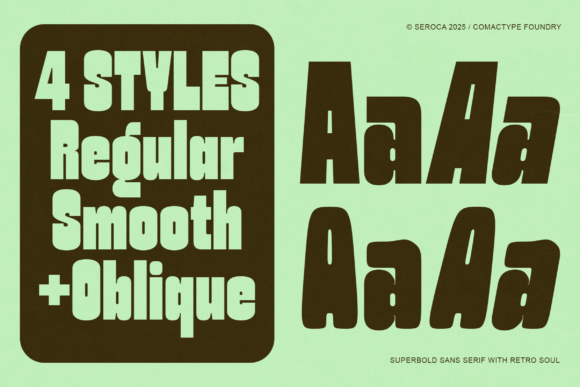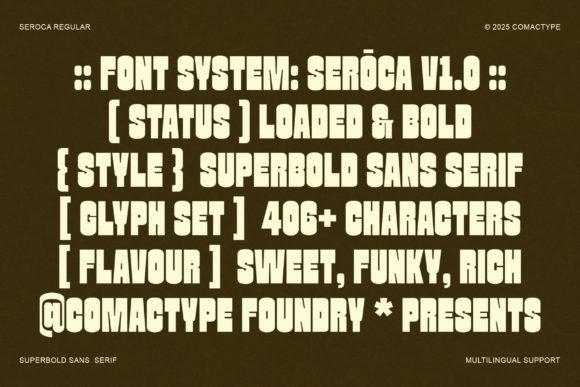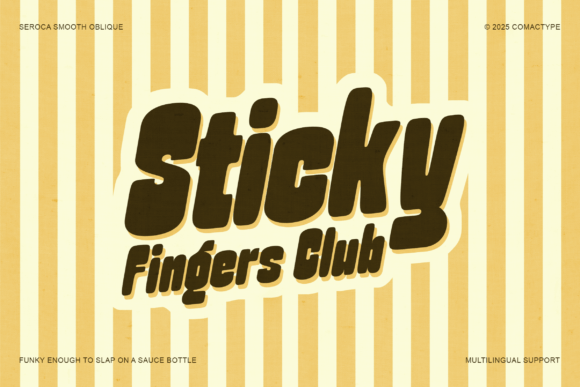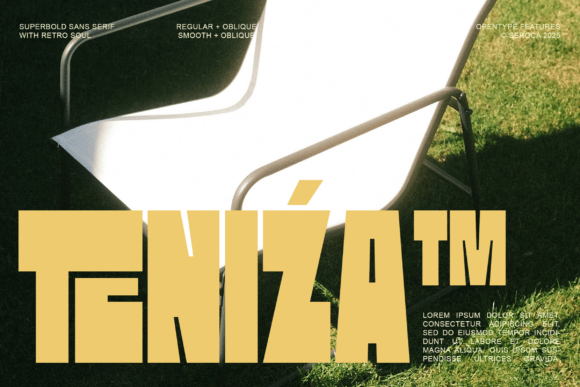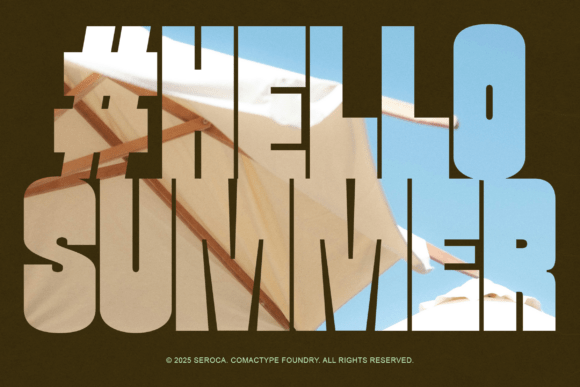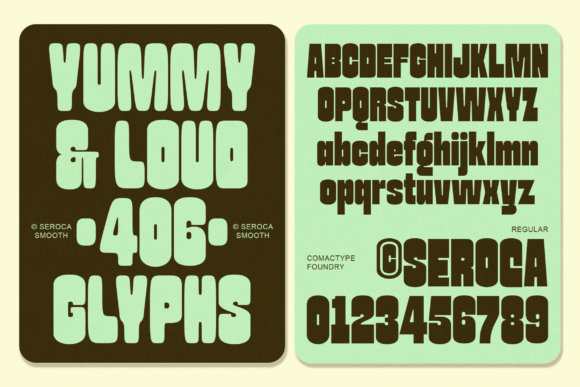
Introduction to Seroca Font
Have you ever been stuck on a design project, desperately searching for that one perfect font to bring your vision to life? That’s where Seroca Font comes in – a super bold sans serif font with a funky, retro-inspired personality that’s sure to make your design stand out.
Designed by Comactype Foundry, Seroca Font is a high-quality design resource that features chunky letterforms, sharp inktraps, and playful shapes that make it perfect for bold design applications, like product labels, food packaging, or vintage-style posters. With its eye-catching presence and strong character, Seroca Font is made to stand out in any creative project, whether you’re working on a free download or a paid design gig.
- Designed with a modern and sleek aesthetic, making it perfect for a variety of creative projects and designs.
Honest Review: Seroca Font
As a designer, I’m always on the lookout for high-quality fonts that can elevate my creative projects. The Seroca Font is one of the latest additions to my design resource library, and I must say, it’s been a game-changer.
- ✨ High-quality design: The Seroca Font boasts beautiful, intricate details that make it perfect for use in creative projects.
- ✨ Customization: The font is highly customizable, allowing me to adjust its style to suit my design needs.
- ✨ Transparent background: This feature makes it easy to work with the font on various backgrounds.
Overall, the Seroca Font is a solid addition to any designer’s library. Its high-quality design, versatility, and customization options make it a valuable resource for any creative project. While it has some limitations, I believe the benefits far outweigh the drawbacks.
Common Use Cases for Seroca Font
Seroca Font is ideal for various creative projects, including graphic design, digital art, and typography-based designs. Its transparent background feature makes it suitable for use on top of images or graphics, adding an extra layer of visual interest to your designs.